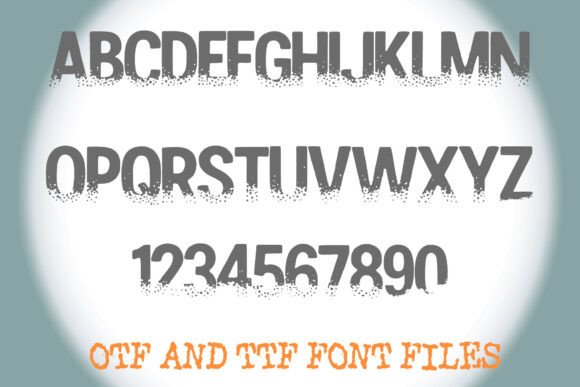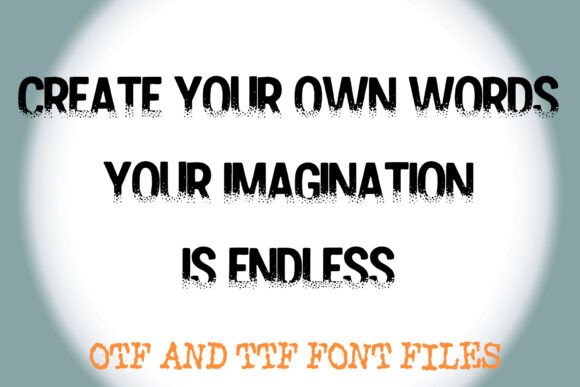
Introduction to Fading Away Font
Fading Away is a creative display font that blends strong letterforms with a distinctive dissolving effect, giving the illusion of letters vanishing into thin air.
This eye-catching style makes it ideal for posters, dystopian themes, or impactful logos .
Key Features of Fading Away Font
Why Choose Fading Away Font?